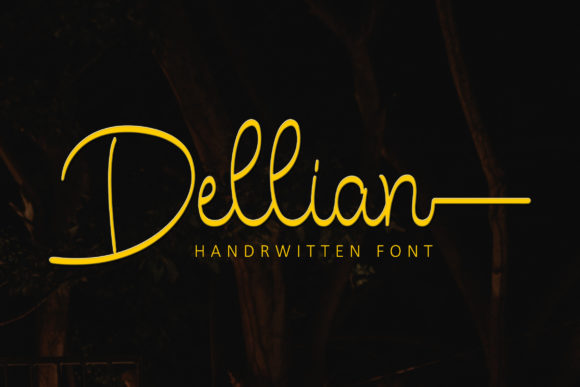
Dellian Font
Dive into the world of elegance and charm with Dellian Font, a masterpiece from the Star Studio, designed to captivate your creative spirit. This script font is a testament to timeless beauty, crafted with meticulous care to deliver an authentic and enchanting experience.
Step into a realm of artistry where Dellian's soft, flowing lines dance across your designs, evoking a sense of delicate grace. Its classic style, infused with a touch of modern flair, brings a refreshing twist to your projects, adding a touch of sophistication that speaks to your refined taste.
With Dellian, your words transform into visual poetry. Imagine your wedding invitations, adorned with Dellian's elegant curves, setting the tone for a day filled with love and joy. Craft beautiful stationery art that exudes timeless charm, leaving a lasting impression on your loved ones.
Unleash your creativity on social media with eye-catching posts that demand attention. Dellian's captivating presence will make your content shine, drawing in your audience with its irresistible allure. From heartfelt messages to captivating promotions, Dellian elevates your social media game to new heights.
Explore the art of handwritten greetings with Dellian's enchanting touch. Create cute greeting cards that warm the hearts of your recipients, conveying your heartfelt sentiments with a personal touch. Let Dellian's graceful strokes carry your messages of love, gratitude, and celebration, leaving a lasting impact that will be cherished forever.